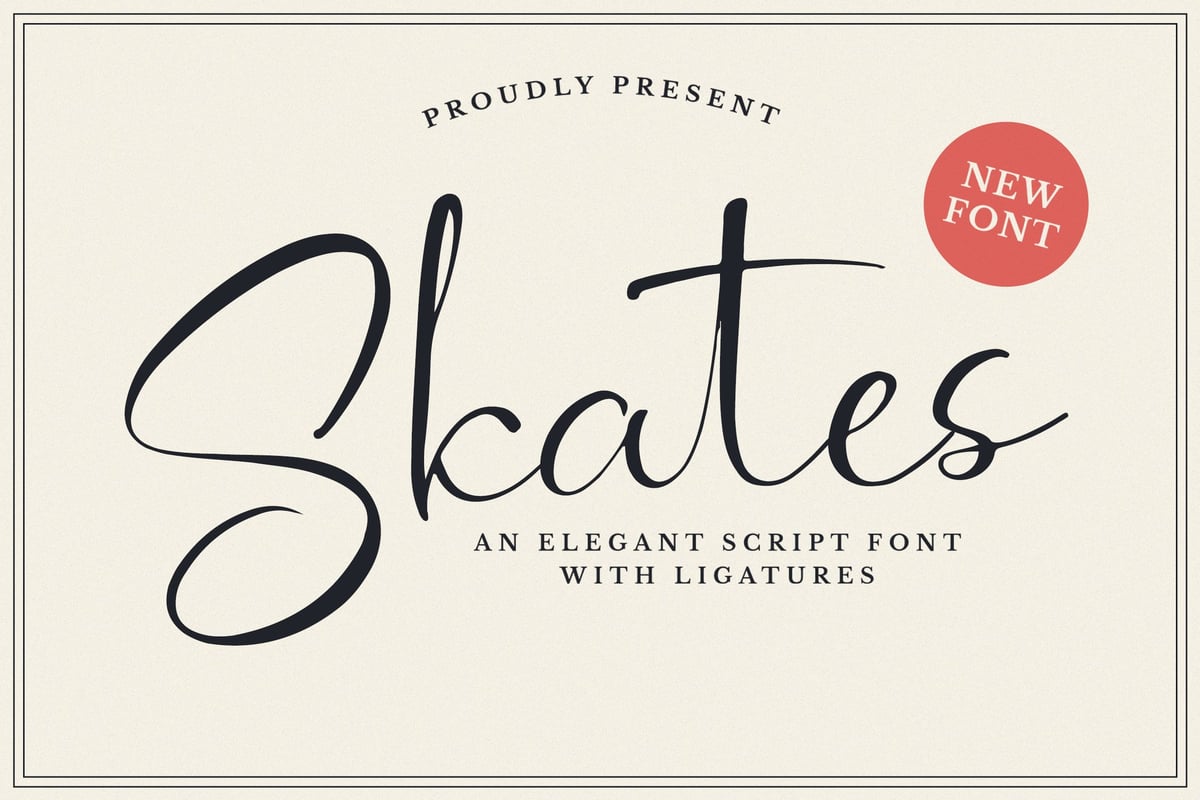
Free Skates – Modern Script Typeface
Skates is a flowing modern script typeface built for designers who want effortless elegance in every project.
With smooth curves and stylish strokes, Skates delivers a contemporary handwritten feel that works beautifully across a wide range of creative applications — from luxury branding and logos to wedding invitations, packaging, and social media graphics.
The font's flowing letterforms and clean structure make it incredibly versatile, adapting seamlessly to both bold display use and refined, delicate designs.
- Ligature support
- Uppercase and lowercase letters
- Numerals and punctuation
- Multilingual support